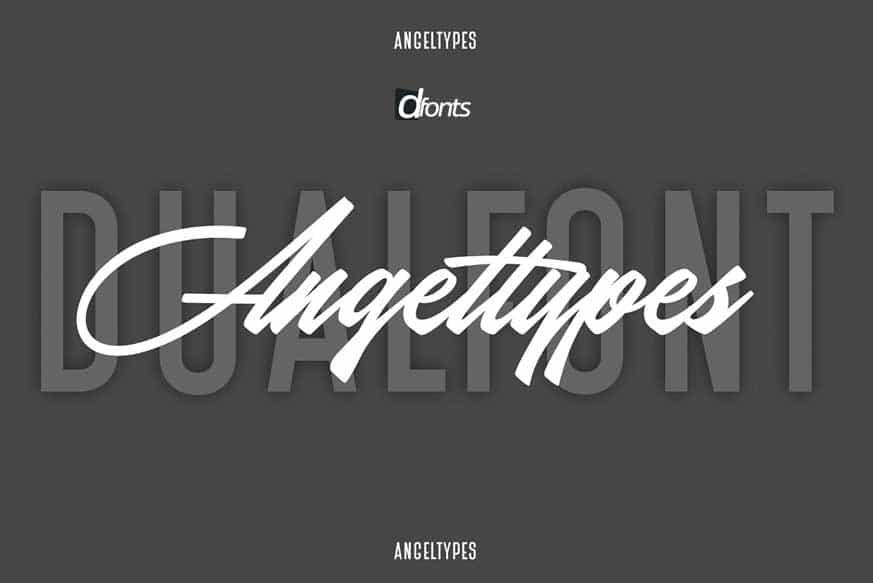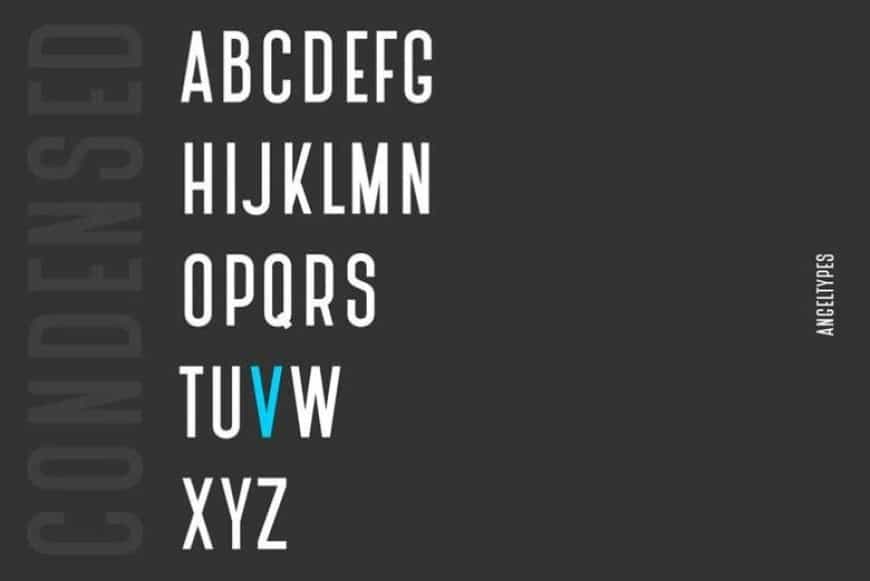
Discover Angel Types Dual Font, part of the Sans Serif Handwritten Display Script collection—a versatile and unique font perfect for adding a personal touch to your projects. Download it for free and enjoy crafting designs with style, from invitations to social media posts. This font is available exclusively for personal use, giving you the freedom to create without limits. Unlock your creativity with Angel Types Dual Font today!
Angel types rom com actresses is a cool font that gives us some engaging scenes to remember. However the capital i and j look big compared with x in lower-case letters on the keyboard so they appear cramped in proportions